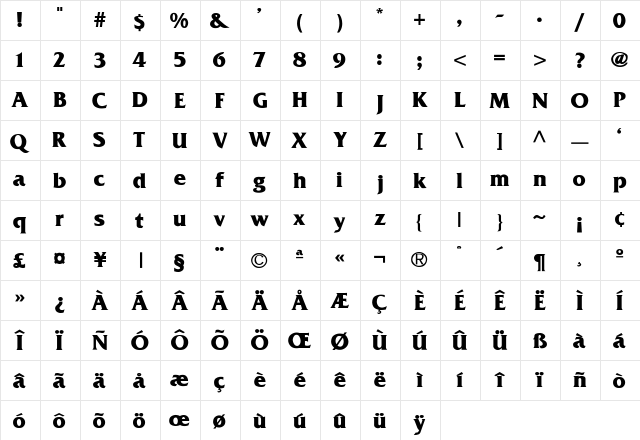
Fortney Bold Bold
Design Context for Fortney Bold Typeface
Fortney Bold takes a measured approach to typography — its balanced proportions and neutral character make it a reliable workhorse for both digital and print work. The heavy weight commands attention and anchors typographic hierarchies.